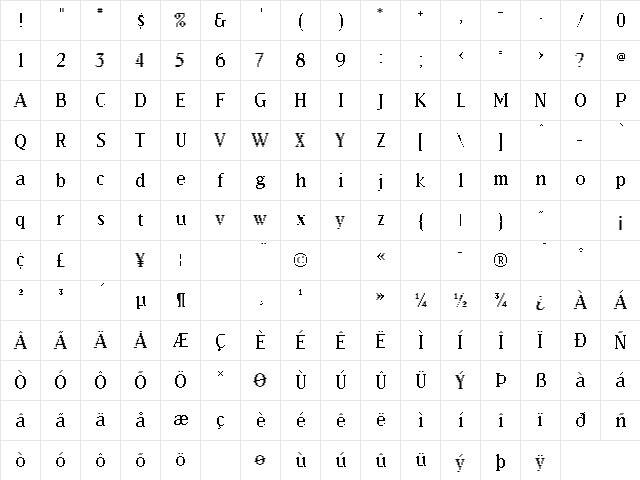
EmigreFourTeen Regular Font Preview
EmigreFourTeen Regular
EmigreFourTeen Regular Font Details
| Year | 1988 |
| Copyright | Copyright (c) January 1, 1986, 1988 Emigre Graphics; Designed by Zuzana Licko |
Design Context for EmigreFourTeen Typeface
EmigreFourTeen offers clean, dependable letterforms without strong stylistic allegiance, making it a practical choice for designers who need flexibility.